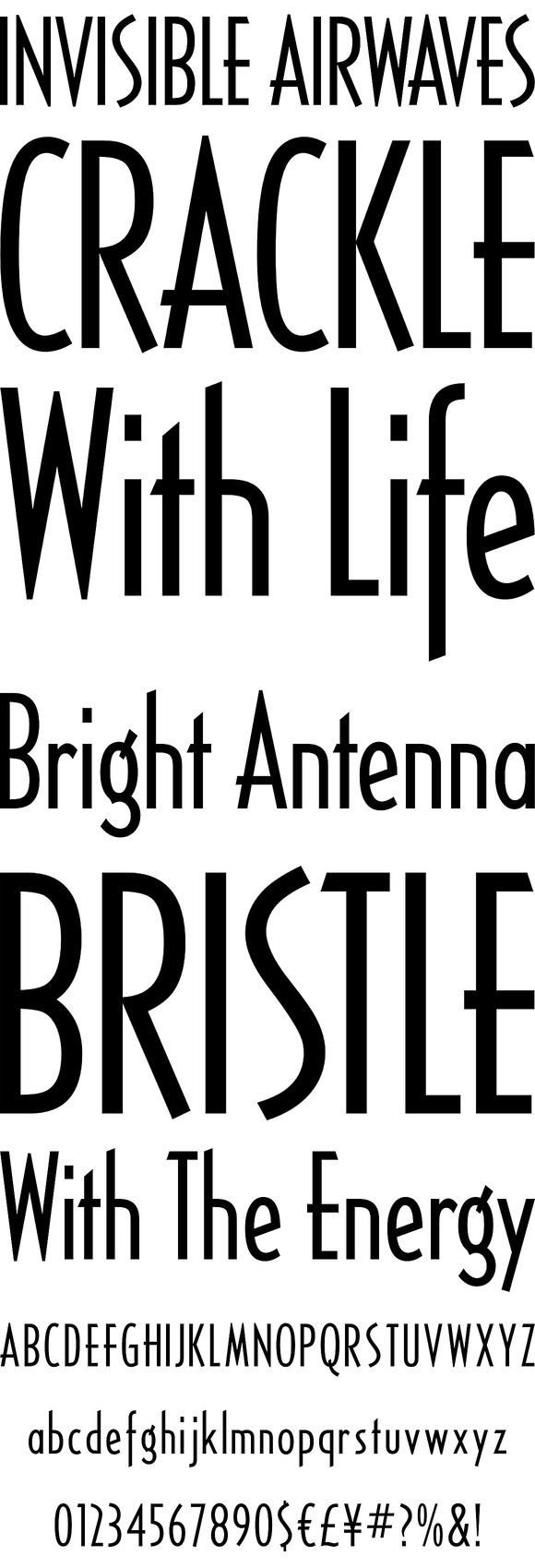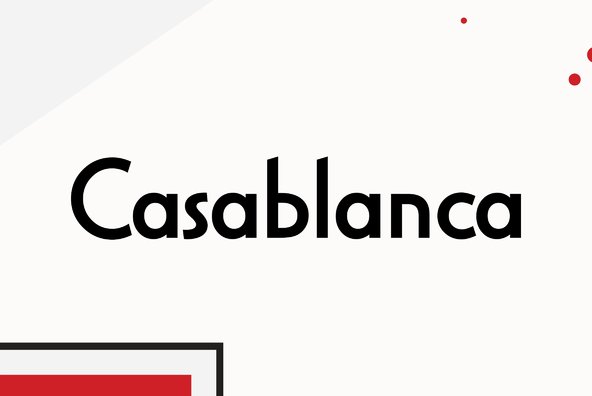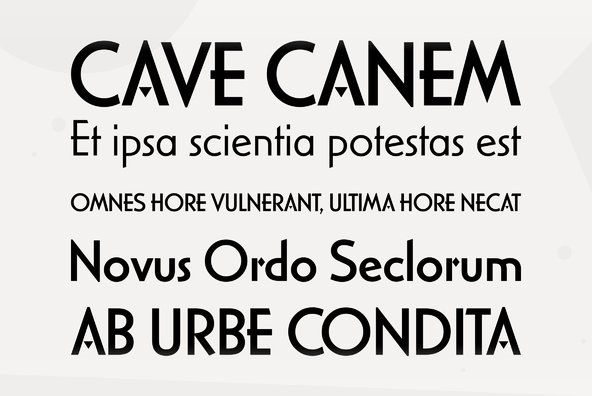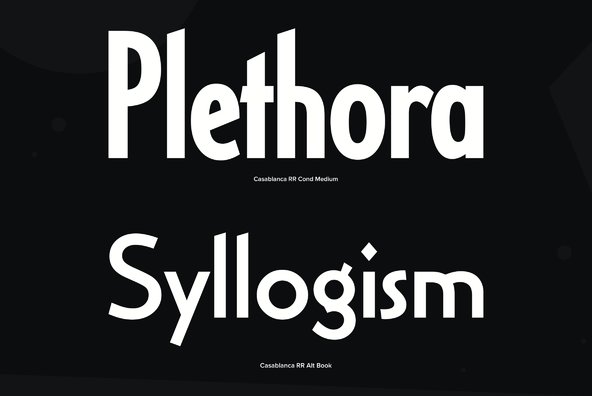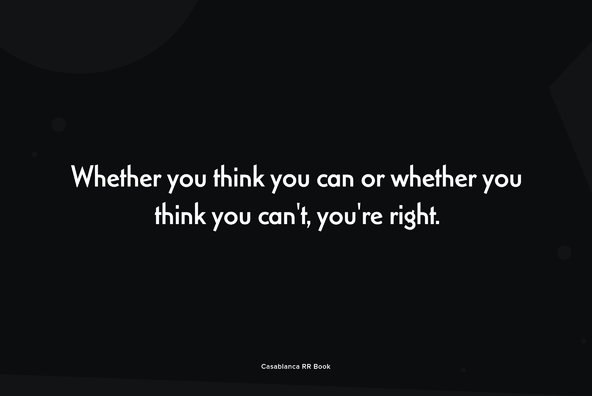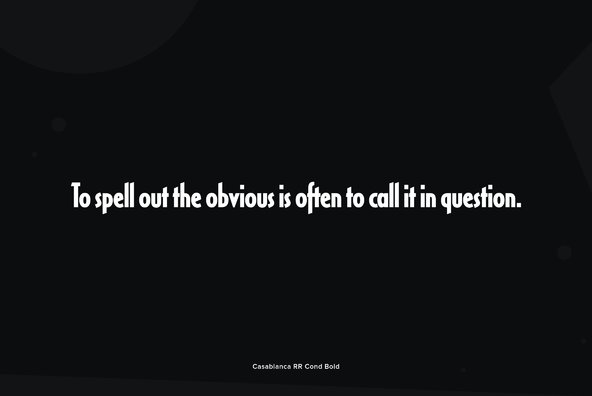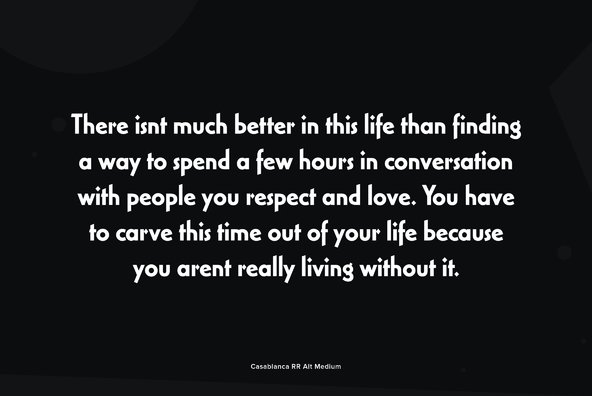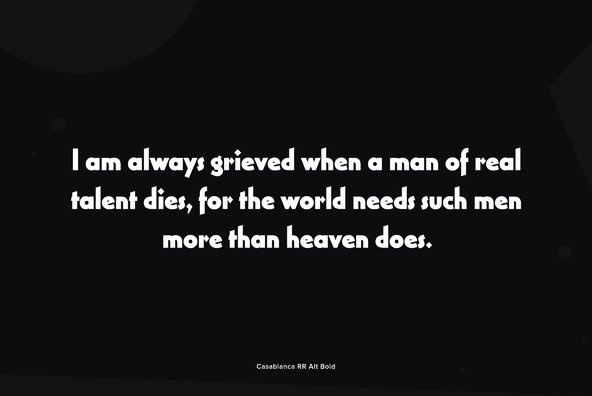
Casablanca
Designed by Steve Jackaman. Based on the Carlos Winkow typeface Electra from the Spanish foundry, Nacional and the Adrian Williams version that he created, that was called Casablanca.